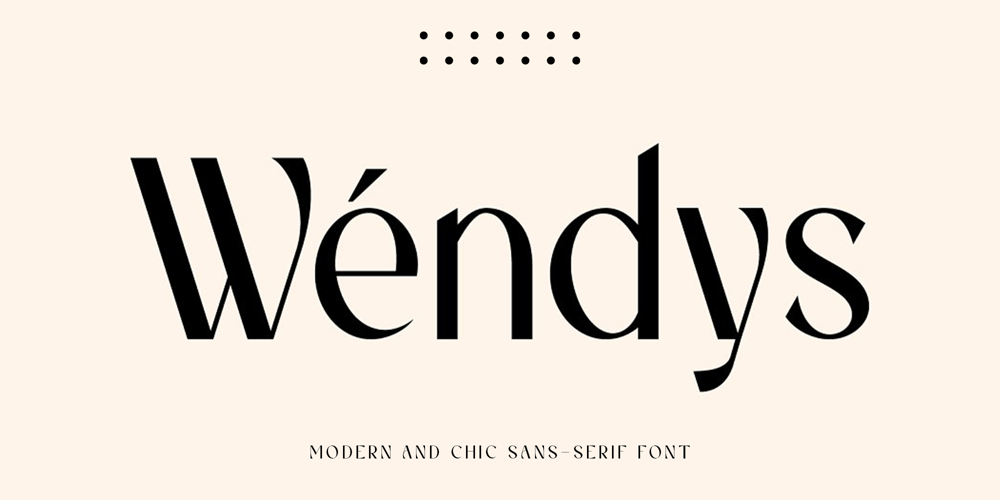
Wendys Font Family was designed by Bakhrudin Ja’far and published by Jafar07. Wendys contains 1 styles and family package options. Wendys | Modern and Chic Sans Serifa modern and stylish style that has unique stroke characters, which is very easy to combine with other fonts, this will be very useful for designers making logo and layout designs.What are you get? Numbers & Punctuation Multilingual Support Works on PC & Mac Simple Installations Enjoy using the Wendys Sans Serif font and it will make a perfect addition to your font collection. If you have some questions, don’t hesitate to drop a message!